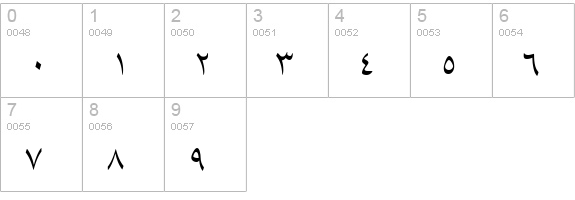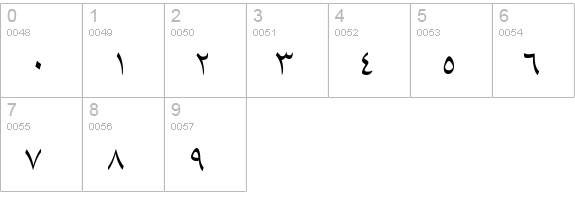
B Lotus Font Details
B Lotus font is a stunning display typeface that exudes elegance and sophistication. With its intricate details and graceful curves, this font is perfect for adding a touch of luxury to any design project. The flowing lines and unique serifs of B Lotus font make it stand out and capture attention. What makes B Lotus font even more appealing is that it is available for free download at FontsMarket.com. This means that you can easily access this beautiful font and use it in your personal or commercial projects without any cost. Whether you're working on branding, invitations, or any other creative endeavor, B Lotus font is sure to elevate your design with its timeless appeal. Download B Lotus font today and add a touch of class to your projects.